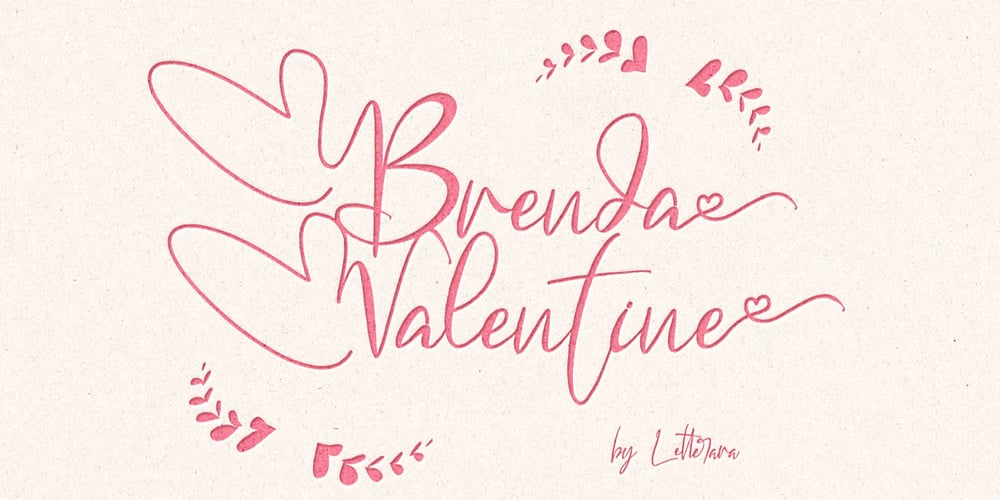
Brenda Valentine Font Family was designed by Thomas Aradea and published by Letterara. Brenda Valentine contains 2 styles and family package options. Brenda Valentine is a cute handwritten font. It will add a romantic touch to any crafting project.